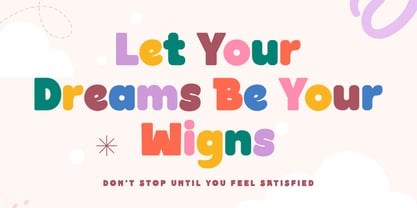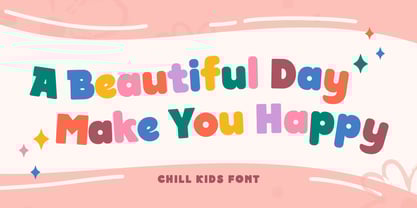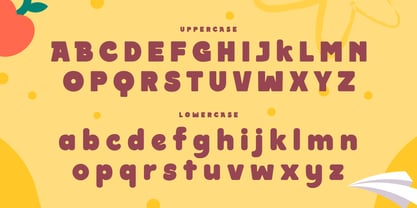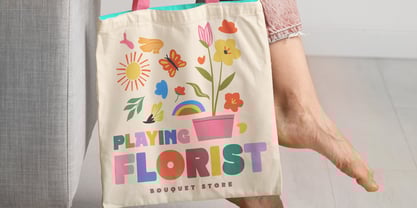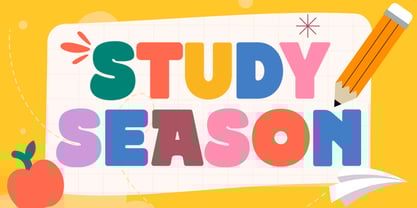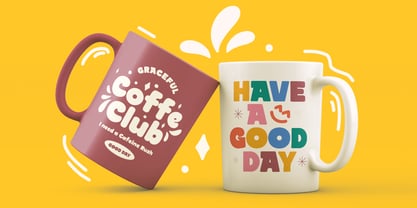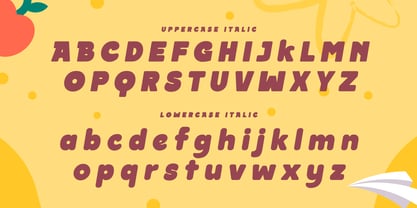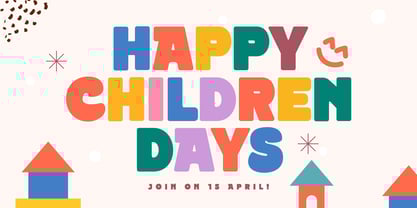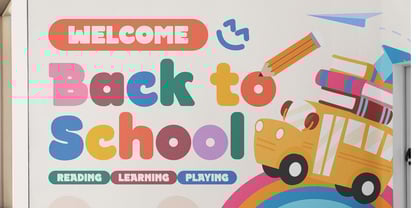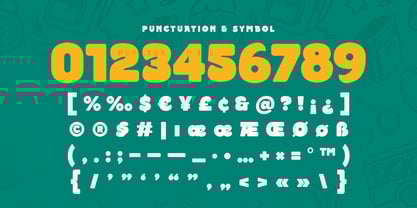
Chill Kids SS
Chill Kids SS is a bold and funny font designed to infuse your projects with a playful spirit. Inspired by the carefree nature of childhood, Chill Kids SS brings a whimsical and cheerful touch to any design. Its friendly and vibrant characters are perfect for children's books, toy packaging, birthday invitations, and any project that needs a fun and casual vibe. With its decorative style, Chill Kids SS stands out and captures attention, making your text not only readable but also enjoyable. The bold design ensures clarity and impact, making it versatile for various applications. Whether you're designing for kids or just want to add a light-hearted feel to your work, Chill Kids SS is the perfect choice to make your designs come alive.
Chill Kids SS Funny Bold Font Features:
• Uppercase and Lowercase
• Punctuation, Number, and Symbol
• Multilingual Support
• Opentype Features